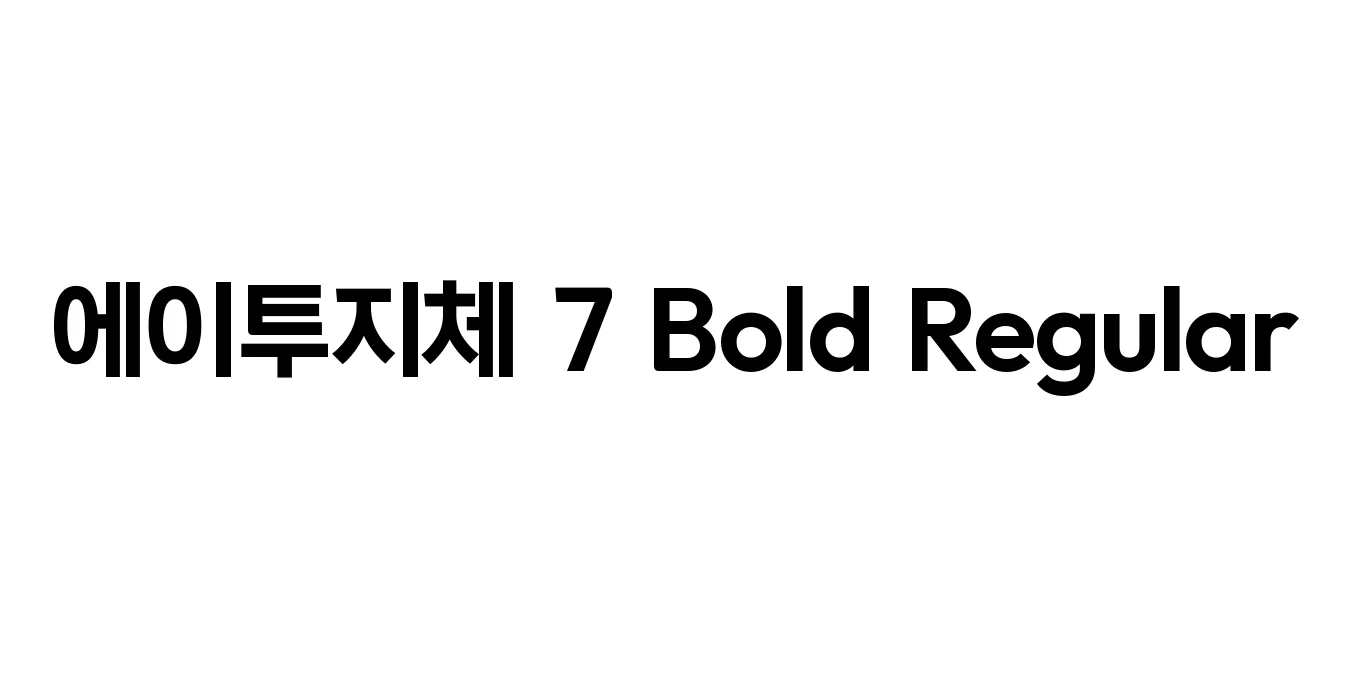
에이투지체 7 Bold Regular
Designed by AtoZ Lab
| Category | Display / Gothic |
| Designer | AtoZ Lab |
에이투지체 7 Bold Regular is a prominent member of the AtoZ typeface series, designed with a focus on geometric stability and high-impact visual communication. This font features a thick, bold stroke weight that ensures excellent legibility even at large scales, making it an ideal choice for display purposes. Its structure follows a modern aesthetic, balancing traditional Korean graphemes with contemporary design sensibilities to create a powerful presence on any canvas.
The typeface was developed to serve as a versatile title font for various digital and print media projects. It is frequently utilized in branding, advertising, and user interface design where a strong typographic voice is required. The clean lines and consistent proportions of the 'AtoZ' series allow it to integrate seamlessly with other minimalist design elements, providing a professional and polished finish to creative works.
에이투지체 7 Bold Regular Best Uses
Perfect for high-impact headlines and title sequences.
Ideal for creating strong and memorable logos.
Ensures readability and visual weight in large-scale prints.
Captures attention in banners and social media graphics.